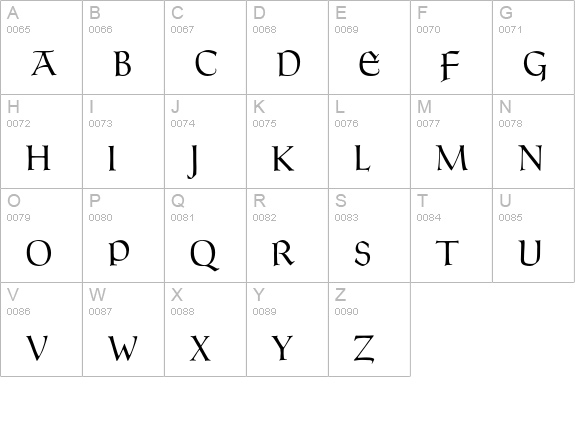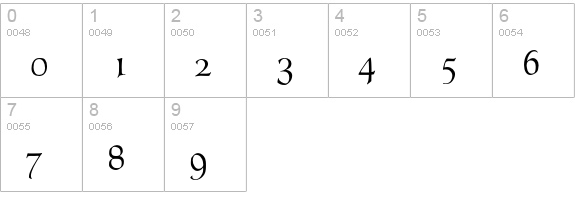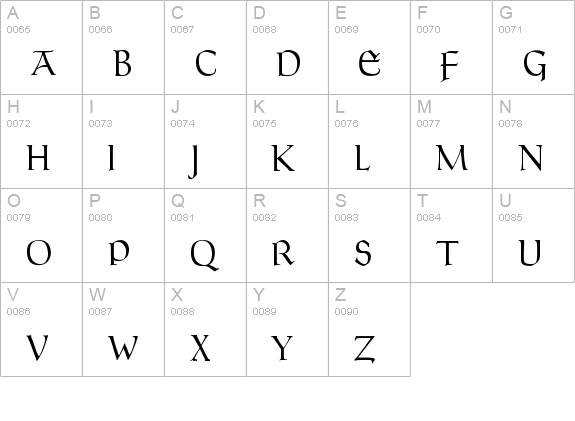
GoudyThirtyH is a classic and elegant serif font that exudes sophistication and timelessness. With its clean lines and refined details, this font is perfect for adding a touch of luxury to any project. The graceful curves and balanced proportions of GoudyThirtyH make it a versatile choice for a wide range of design applications. One of the best things about GoudyThirtyH is that it is available for free download at FontsMarket.com. This means that you can easily access this exquisite font without any cost, making it a valuable addition to your font collection. Whether you're working on a branding project, a website design, or a print publication, GoudyThirtyH is sure to elevate your work with its sophisticated charm. Download GoudyThirtyH today and enhance your designs with its timeless beauty.